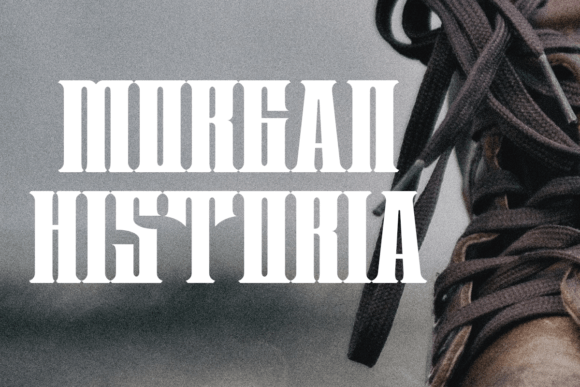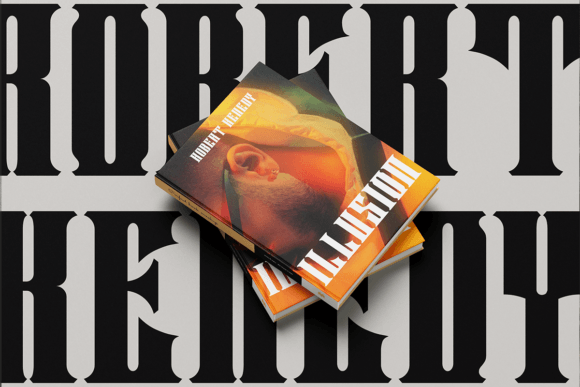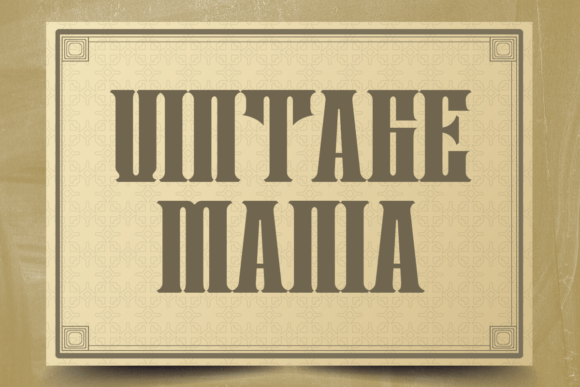
Introduction to Borgoes Font
Borgoes is a unique typeface that combines contemporary design with a classic vintage touch.
This versatile font is perfect for adding a stylish and timeless appeal to your design projects, whether it’s for logos, branding, packaging, invitations, or advertising .
Key Features of Borgoes Font
Why Choose Borgoes Font?
Borgoes Font offers exceptional quality and versatility, making it a valuable addition to your design toolkit. Whether you’re creating for personal projects or commercial use, Borgoes Font delivers professional results.